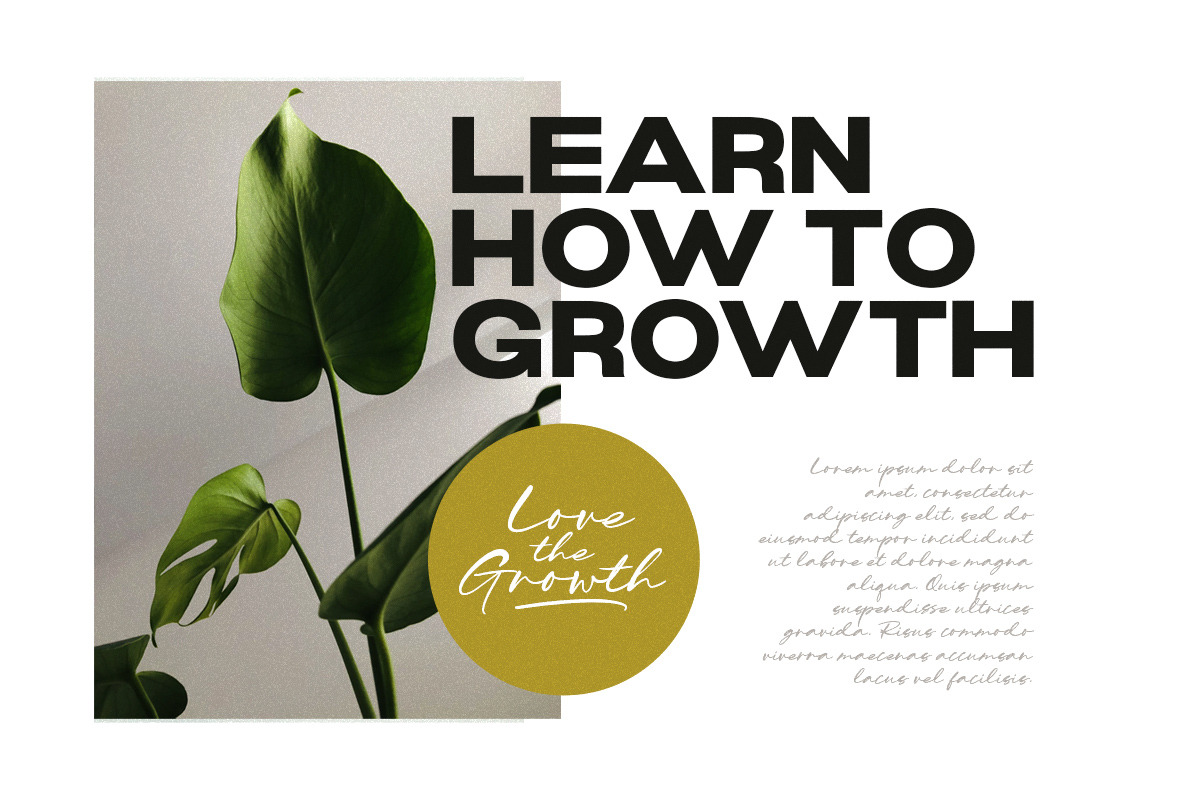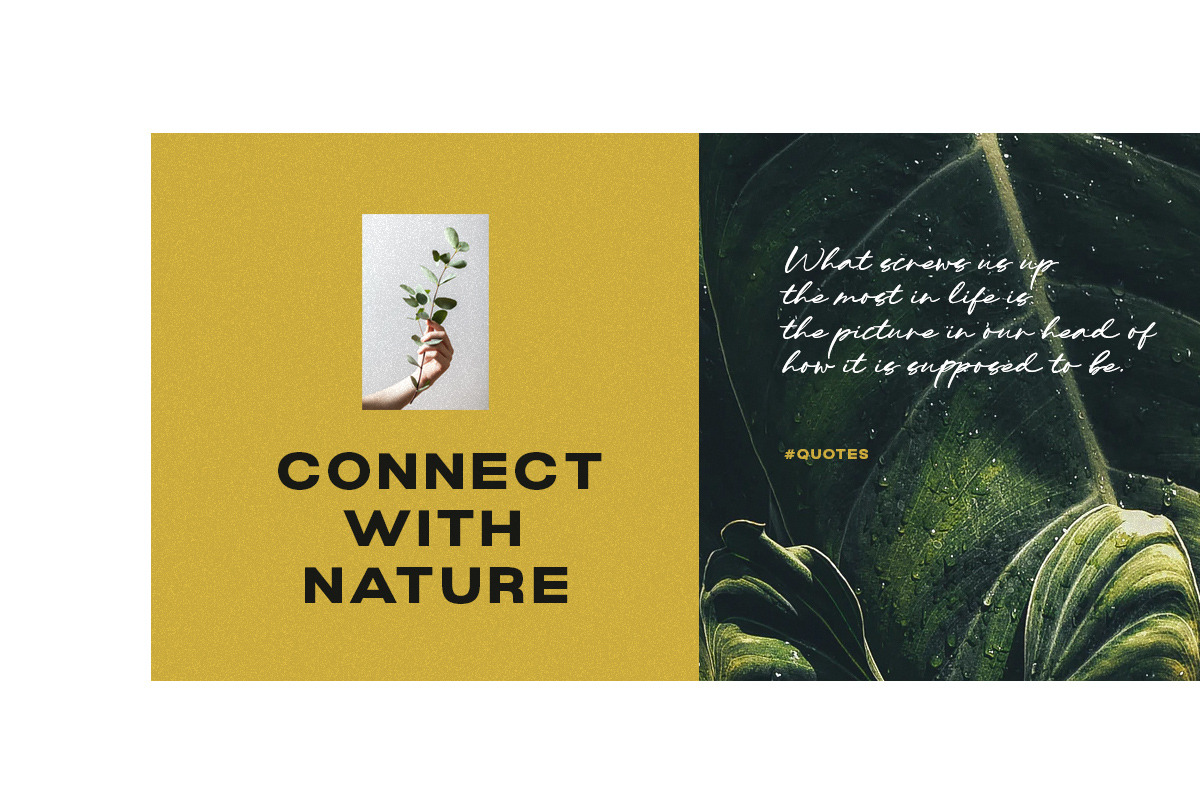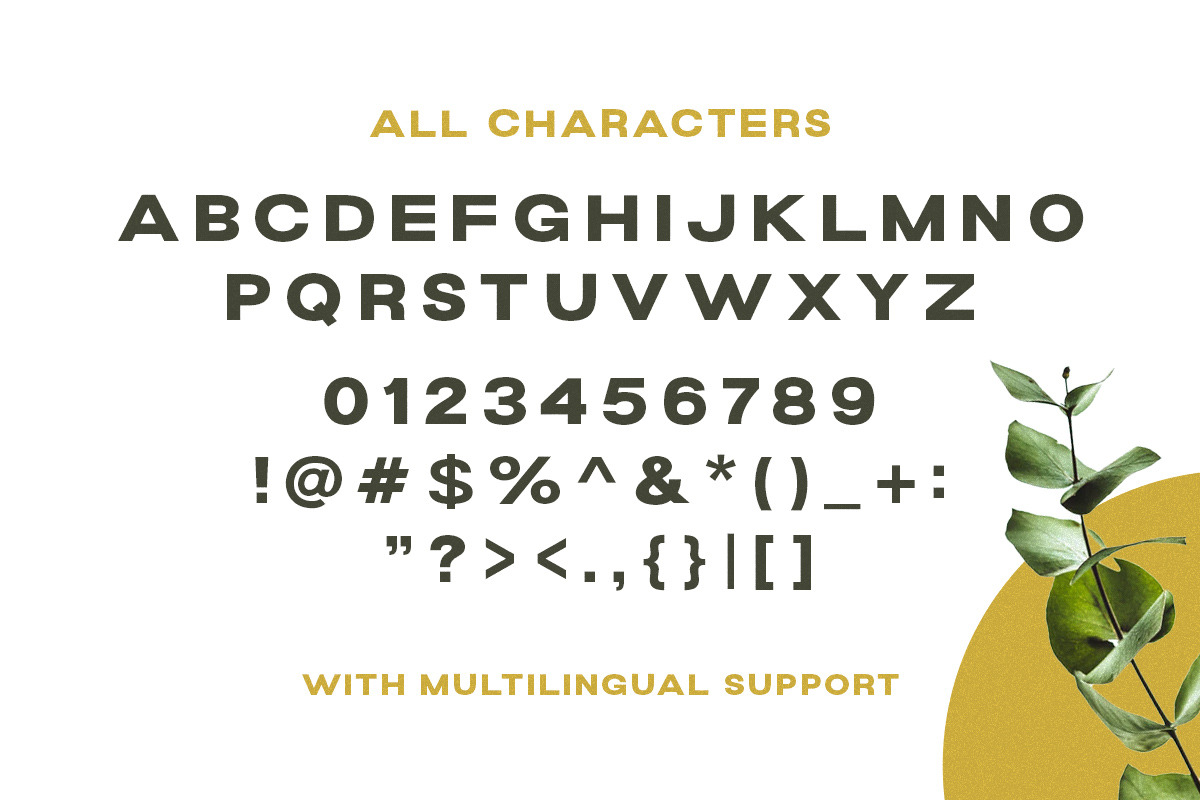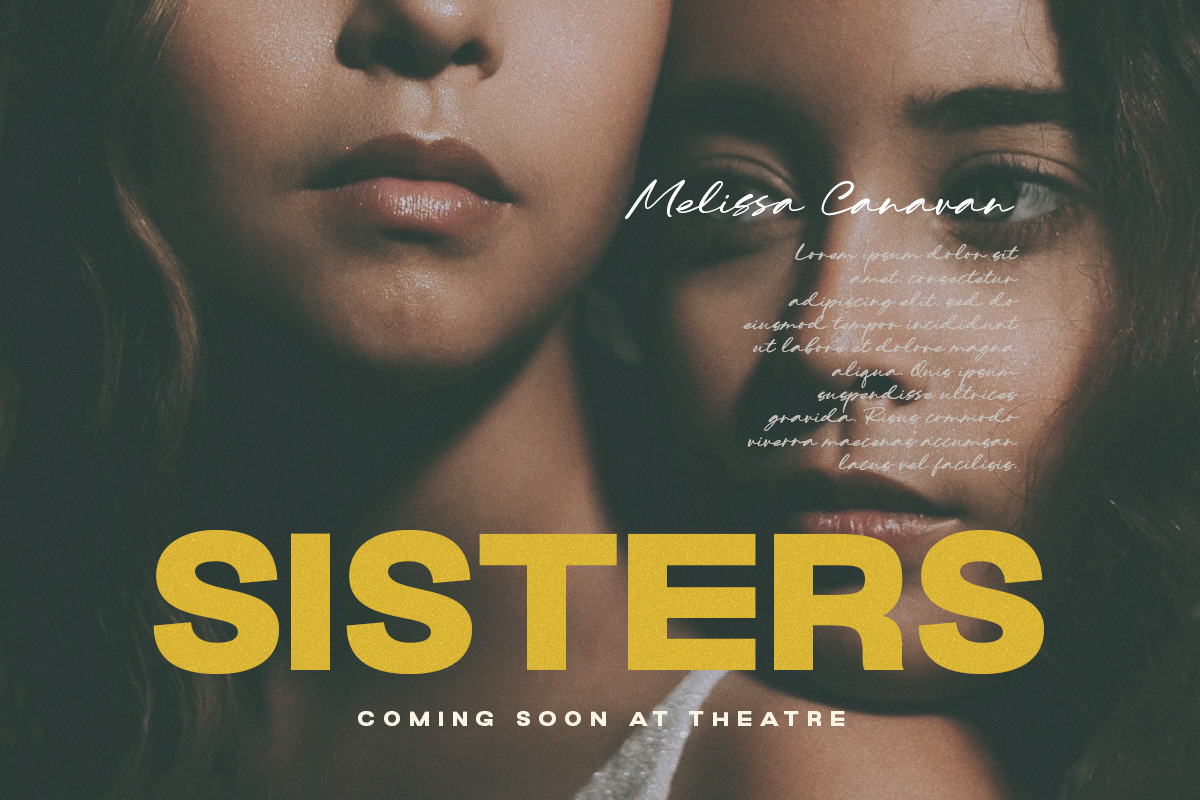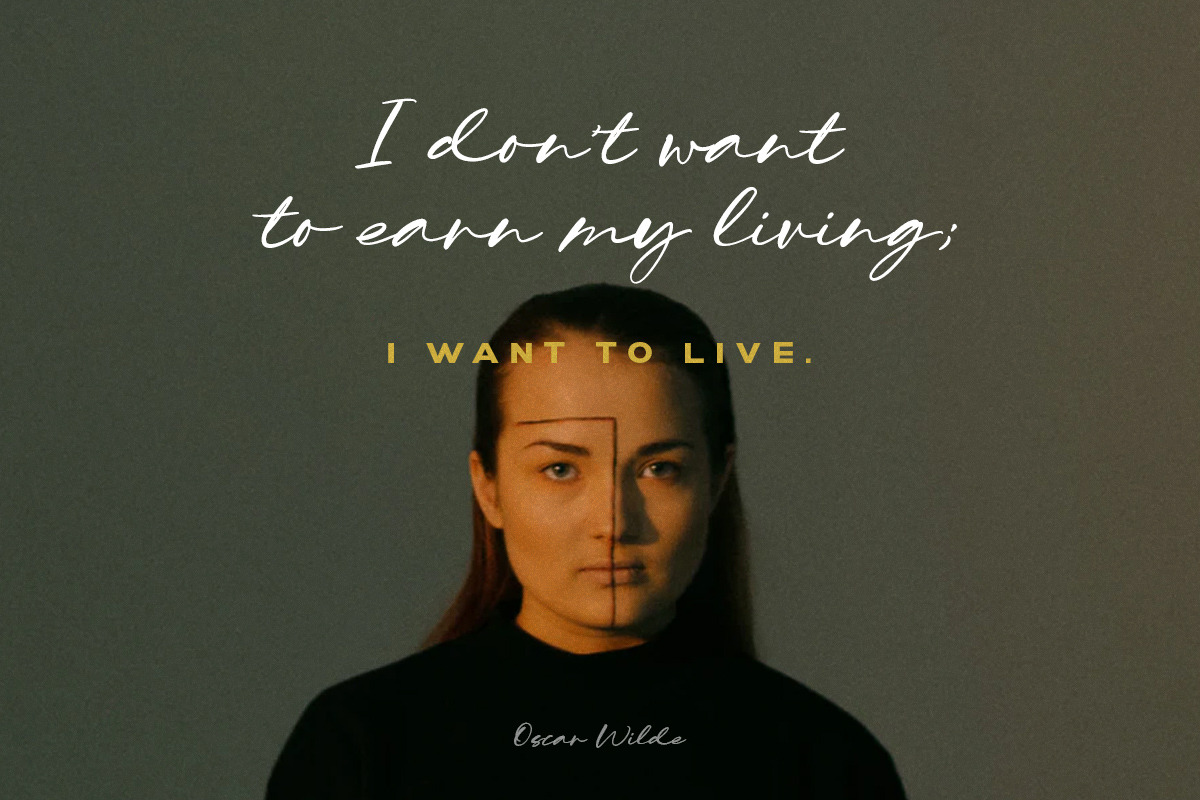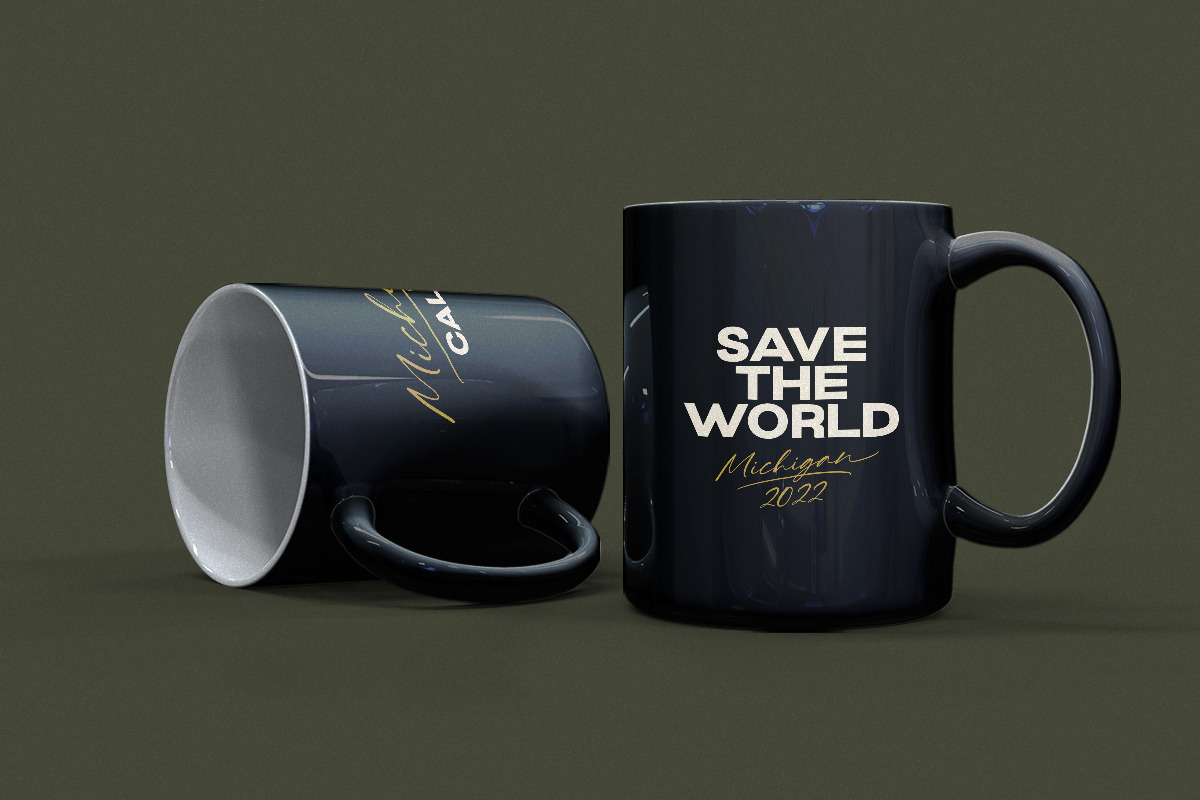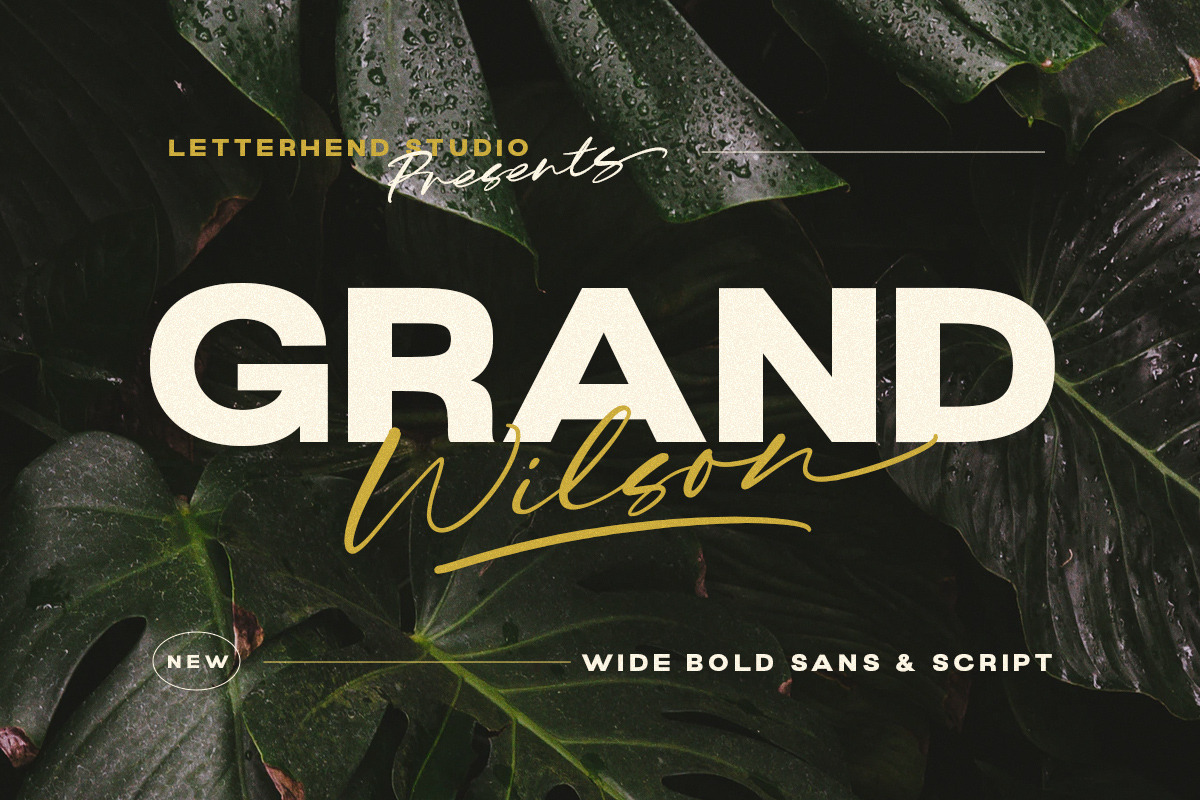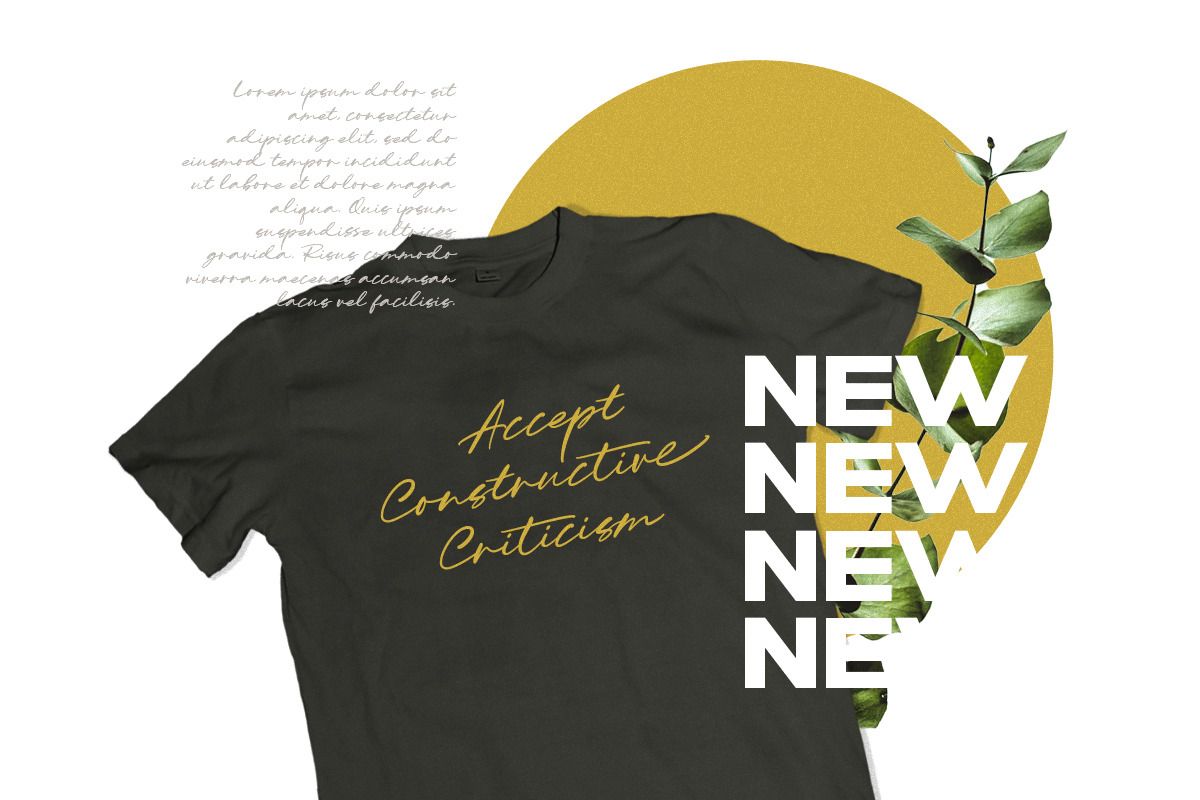
Grand Wilson - Font Duo
Introducing, Grand Wilson, a pair of font that brings the modern and casual feel in the same time. The Bold sans combined with the natural hand writing script are the perfect match for you who needs a typeface for headline, logotype, apparel, invitation, branding, packaging, advertising etc.
- 2 fonts (bold sans and script font)
- alternates & ligatures